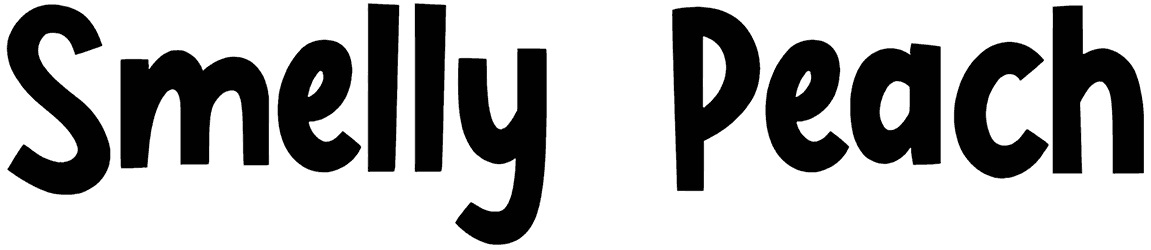
Finding the proper font for design may look challenging, but RB is here to help you out with a handy cartoon font. This magic font transforms your creations into fantastic works of art.
Its distinct personality and friendly appearance may provide you with more flexibility when making posters, invites, social media postings, and garment designs, among other things. Choose a few more comic fonts from our extensive selection to go above and beyond.